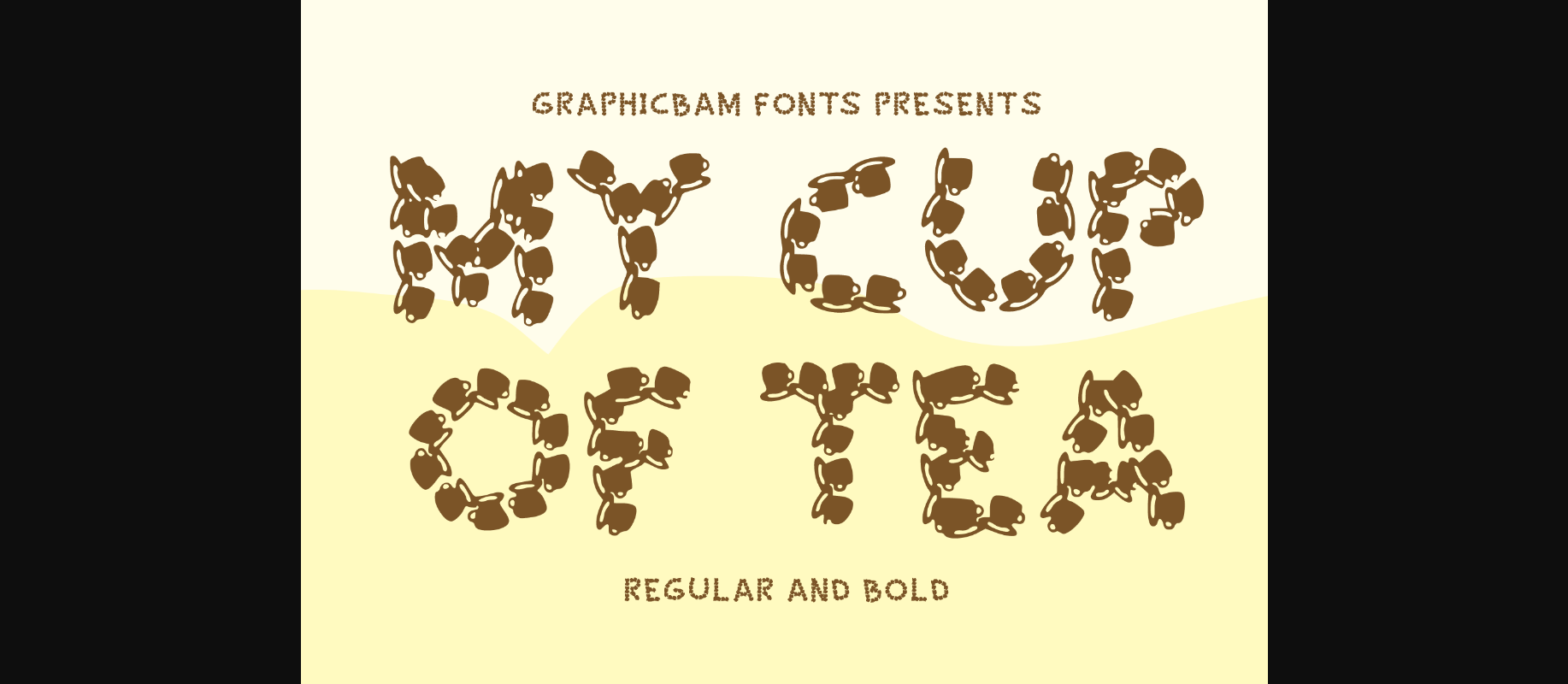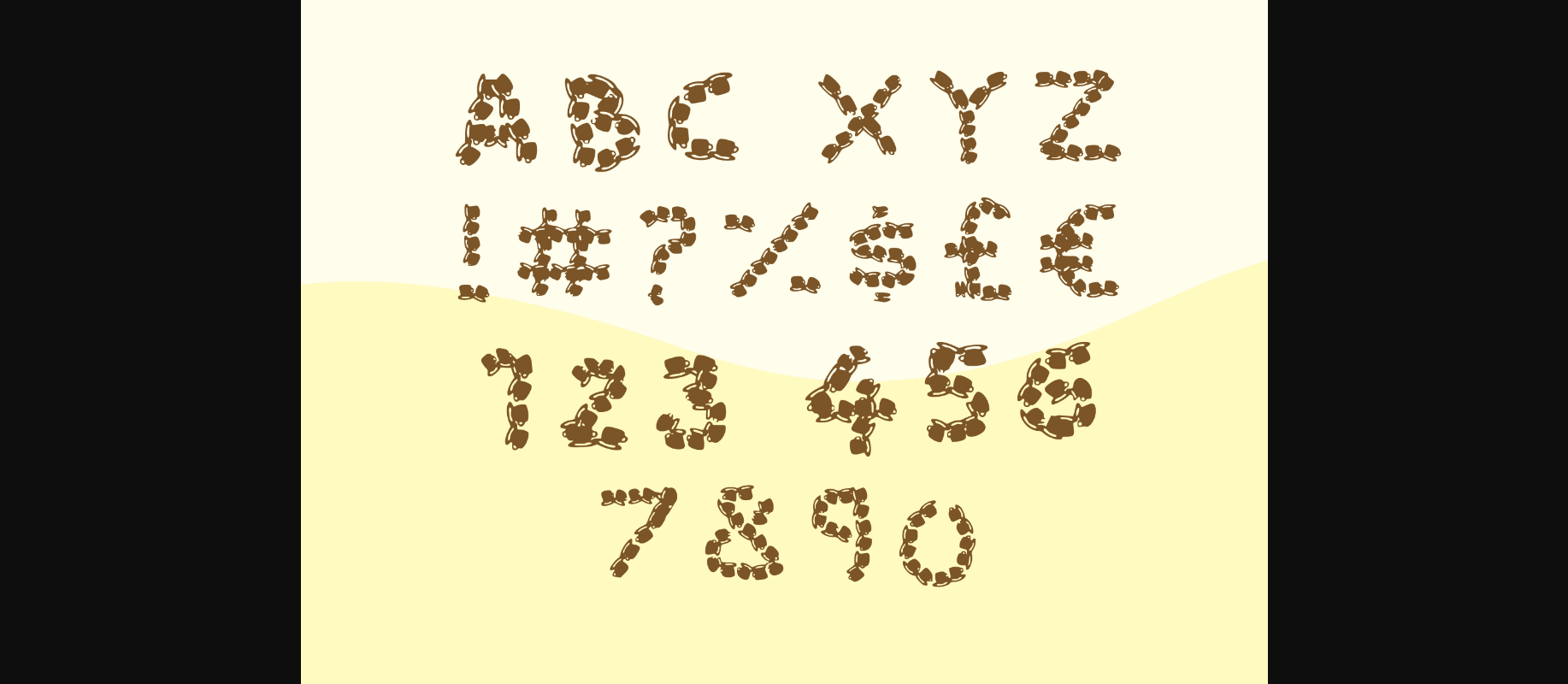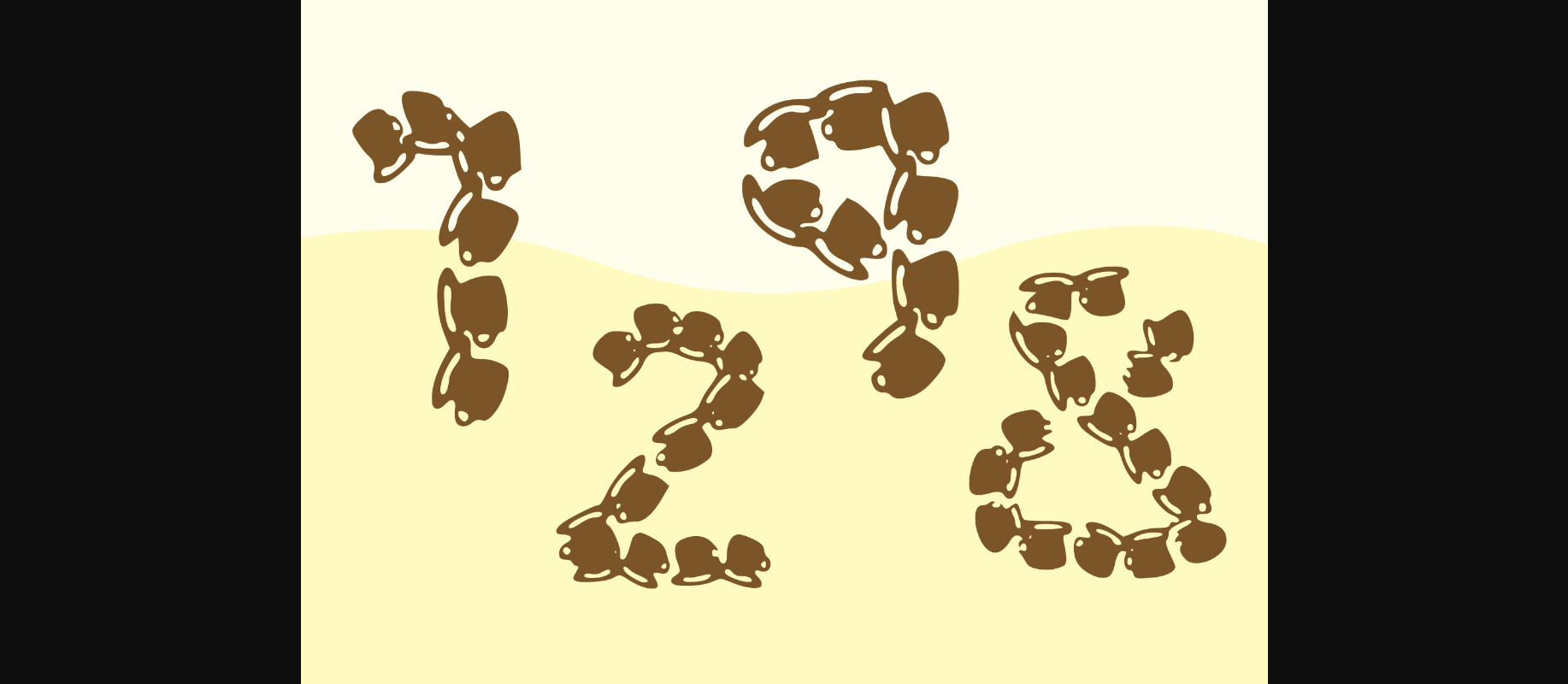
HomeDecorative FontsMy Cut of Tea Font Decorative Fonts My Cut of Tea Font FacebookXPinterestWhatsApp 1 of 5 ... My Cut of Tea Font Poster 2... My Cut of Tea Font Poster 3... My Cut of Tea Font Poster 4... My Cut of Tea Font Poster 5... About My Cut of Tea Font My Cut of Tea is an incredibly cool and interesting decorative font, with characters made out of small cups. Featuring a strong visual effect, this font will instantly make your creation more appealing than any others. DOWNLOAD NOW People also explored Astronueu Semi-Bold Font Versaced Font Blue Birds Font Gatherings Font Merry Integrity Font Amiela Font Butterfly Font Sour Watermelon Font HEANFFE 445 0 TagsMy Cut of Tea Font Previous articleVintage Film FontNext articleKeep off Font LEAVE A REPLY Cancel reply Comment: Please enter your comment! Name:* Please enter your name here Email:* You have entered an incorrect email address! Please enter your email address here Website: Save my name, email, and website in this browser for the next time I comment. Personal Use Free Arc Personal Use Free Read more about this font Authurium Personal Use Free Read more about this font DangeRNighT Font Personal Use Free Read more about this font Starry Cakes Personal Use Free Read more about this font BLOG 5 Fonts That Will Dominate Design Trends in 2026 5 Fonts for 2026 That Will Dominate Design Trends Typography plays a critical role in visual communication, and as we look ahead to 2026, it’s... To increase your work productivity, choose the most readable fonts. Best Fonts for YouTube Videos: Make Your Thumbnails Stand Out How to Install and Use Fonts on Windows, macOS, and Web Projects